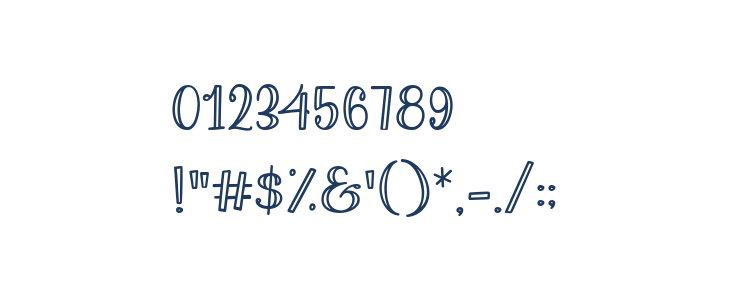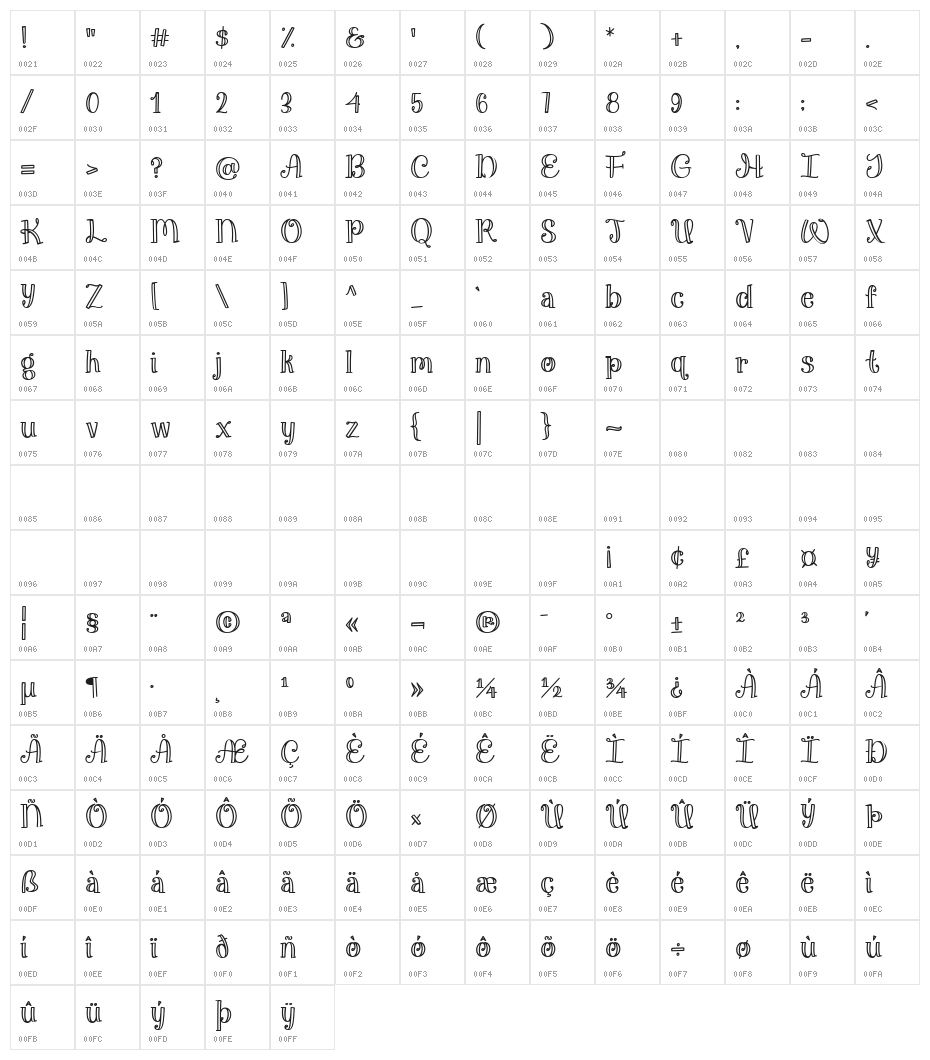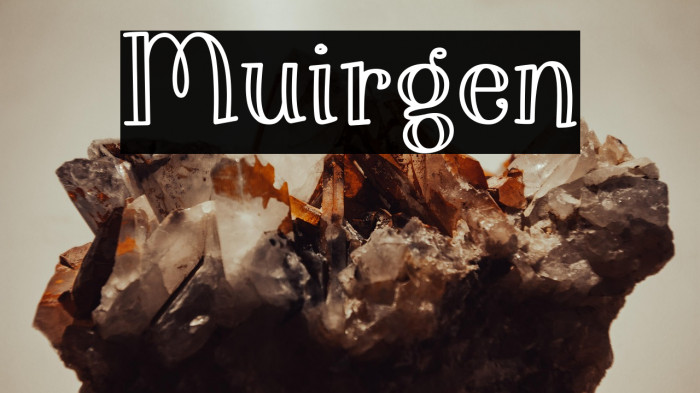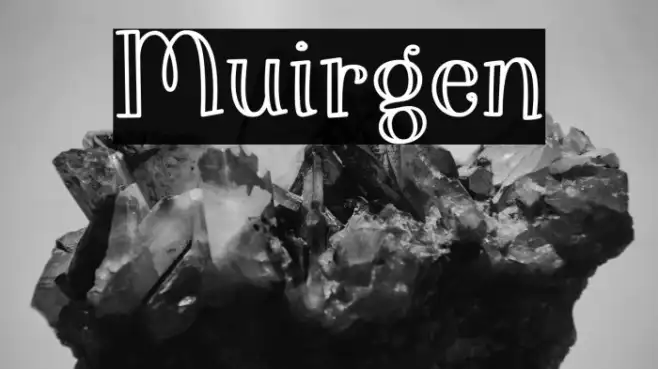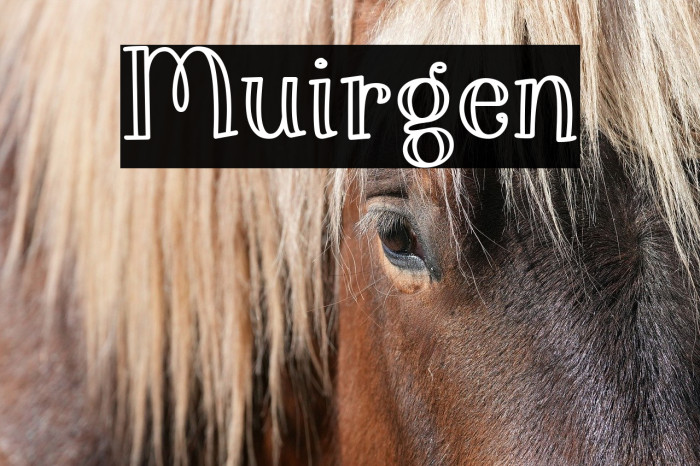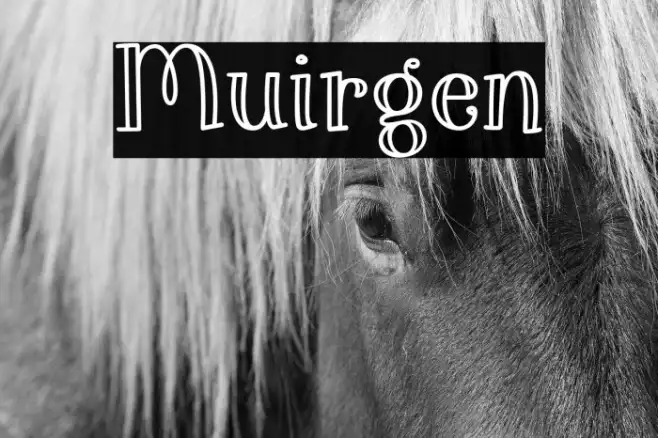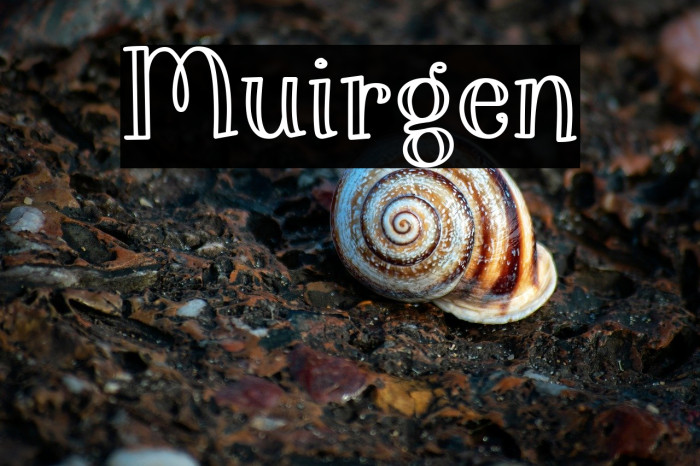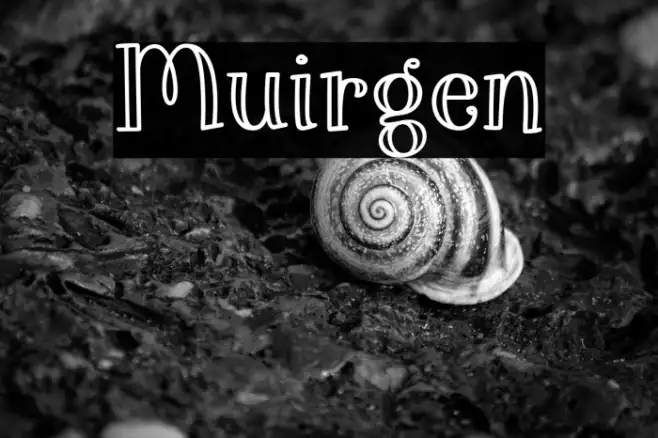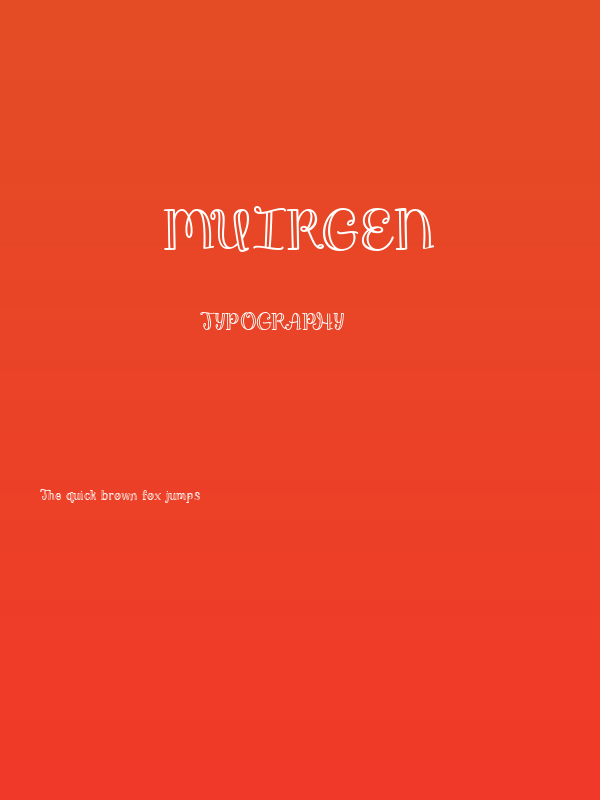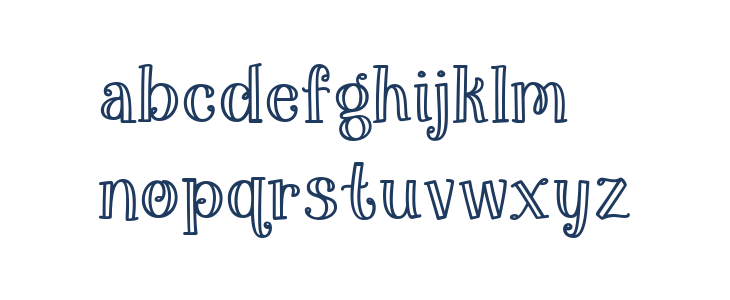
Muirgen Font
Muirgen Description
This font features a playful and whimsical design with a decorative flair. Each character is adorned with unique curls and loops, giving it a lively and dynamic appearance. The uppercase letters are bold and prominent, while the lowercase letters maintain a consistent style with slightly more subtle embellishments. The numerals and special characters follow the same decorative theme, ensuring a cohesive look across all text. The overall design is reminiscent of a hand-drawn style, making it suitable for projects that require a touch of creativity and fun.
| Proposed Projects | Ideal for children's books, greeting cards, playful branding, and creative posters. |